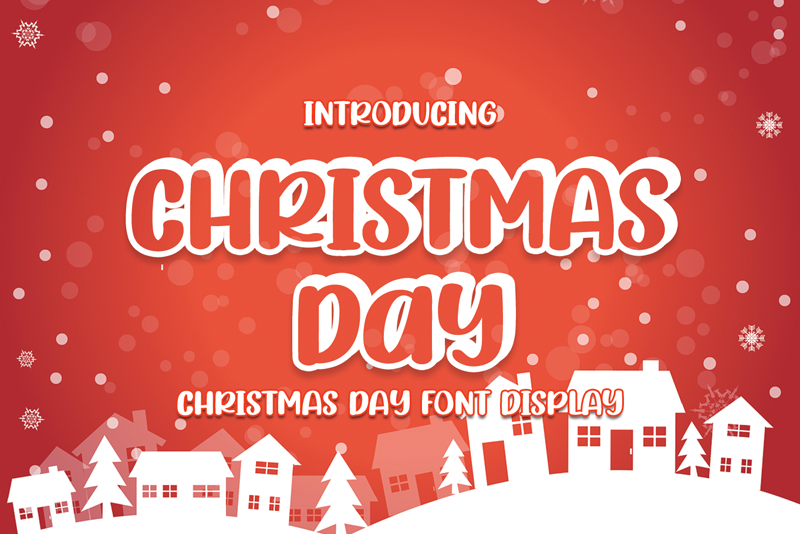
Font name: | Christmas Day |
Christmas Day is a cool and fun display font. It can easily be matched to an incredibly large set of projects, so add it to your creative ideas and notice how it makes them stand out! Attention : Christmas Day handwriting Font is prohibited to use this font for commercial purposes or for profit without the permission of the author/admin, without being known to use this font without permission, will be subject to sanctions 5x the specified price. This font is used only for demos (Demo license) If you want to use this font for commercial use please contact email: erikluluk0@gmail.com or click the link below: https://www.creativefabrica.com/product/christmas-day-16/ref/745146/ If you want to see more other fonts, please click:https://www.creativefabrica.com/designer/erik-studio/ref/745146/ Any donations are very appreciated. Paypal account for donation: https://paypal.me/erikstudio1 thanks. |